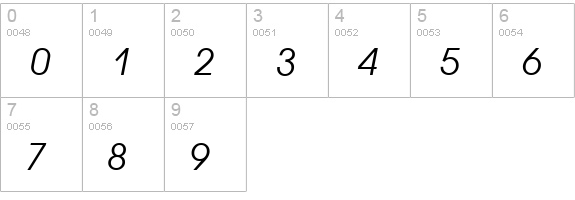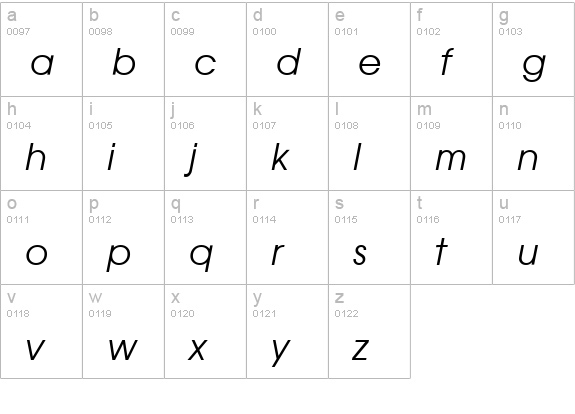
Avignon-Italic is a distinctive, italic variant in the Avignon typeface family \xE2\x80\x94 well suited to design and typography projects.
Avignon-Italic is a stunning and elegant font that exudes sophistication and style. With its sleek and graceful curves, this typeface is perfect for adding a touch of class to your designs. The italicized version of the Avignon font family brings a sense of refinement and flair to any project. The best part is that Avignon-Italic is available for free download at FontsMarket.com. You can easily access this beautiful font and enhance your creative projects with its timeless appeal. Whether you're designing invitations, logos, or branding materials, Avignon-Italic is sure to make a lasting impression. Download it today and elevate your designs with this exquisite typeface.